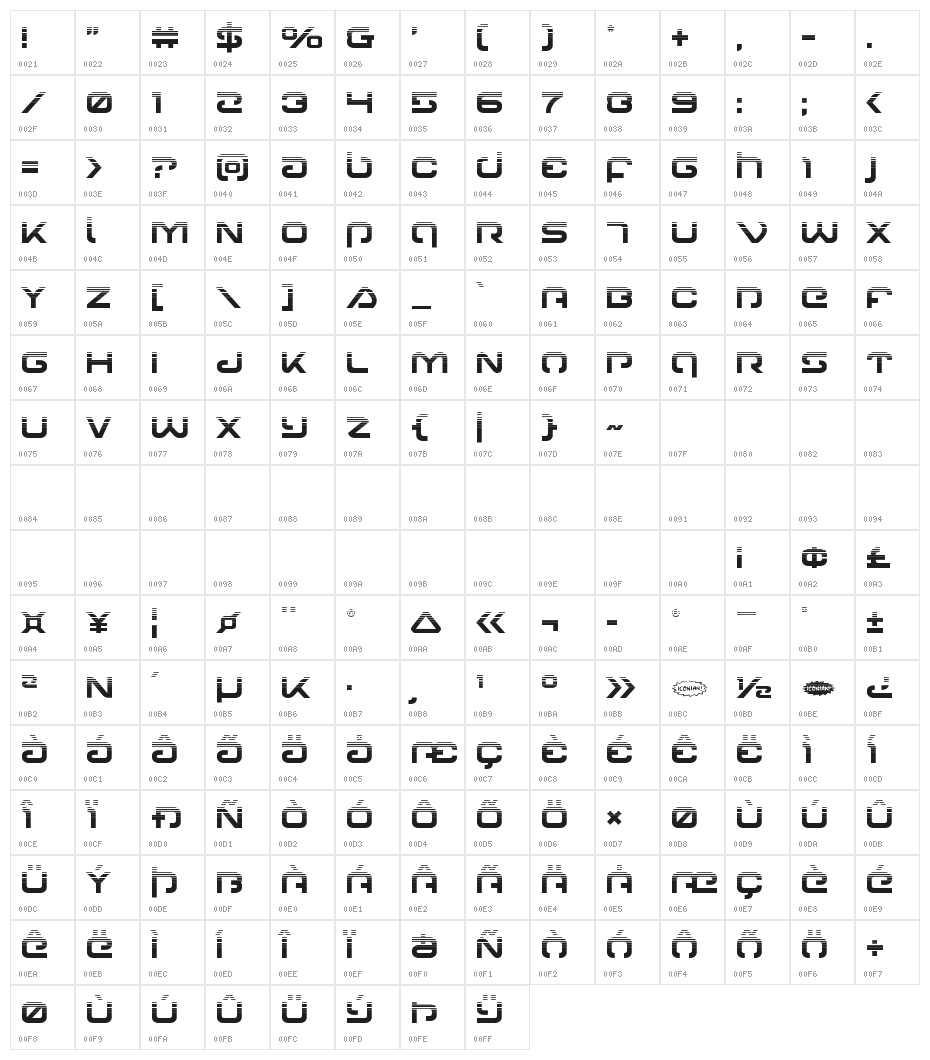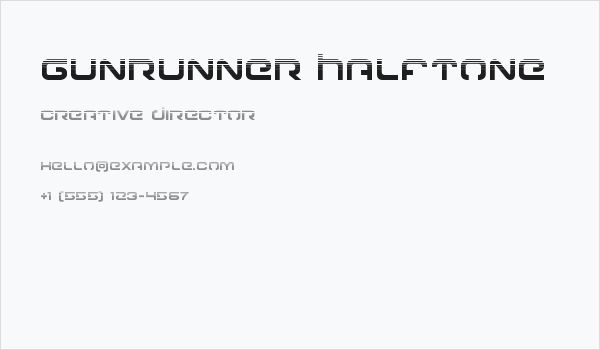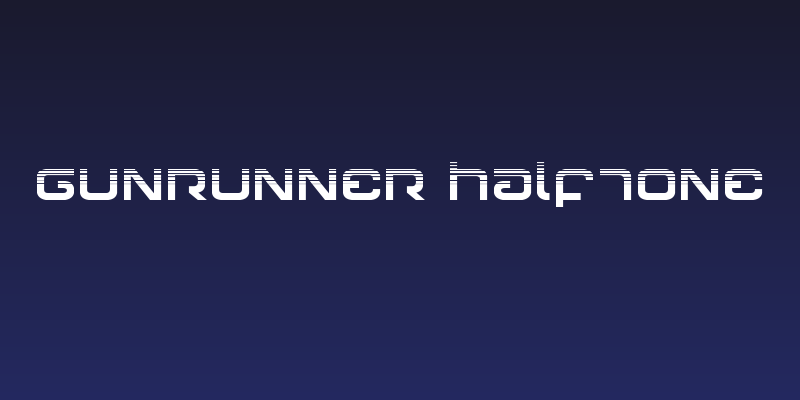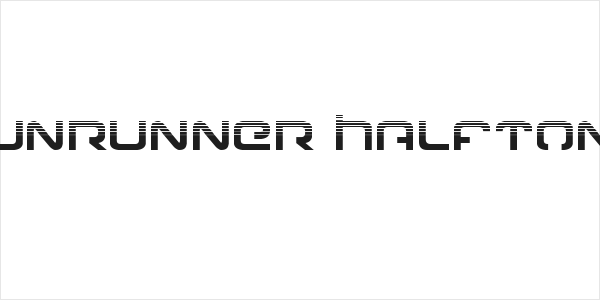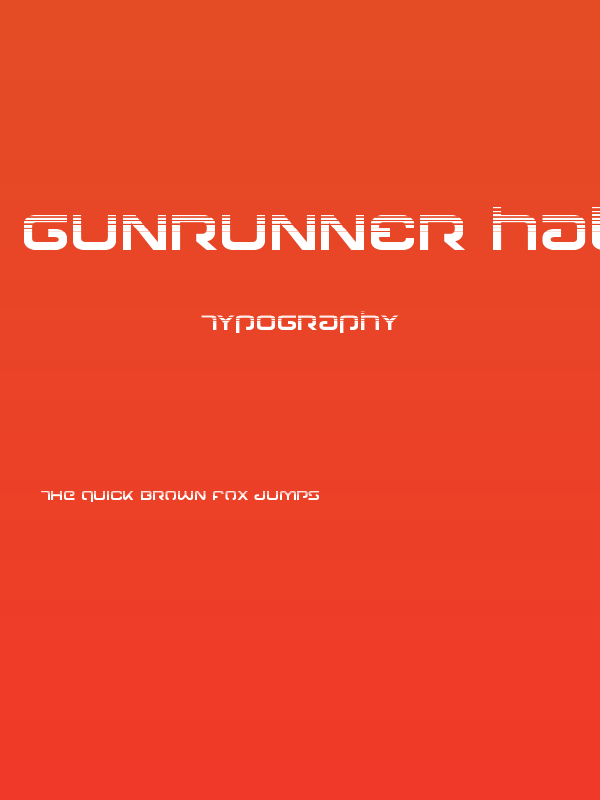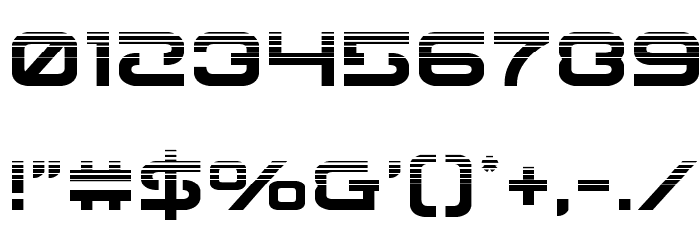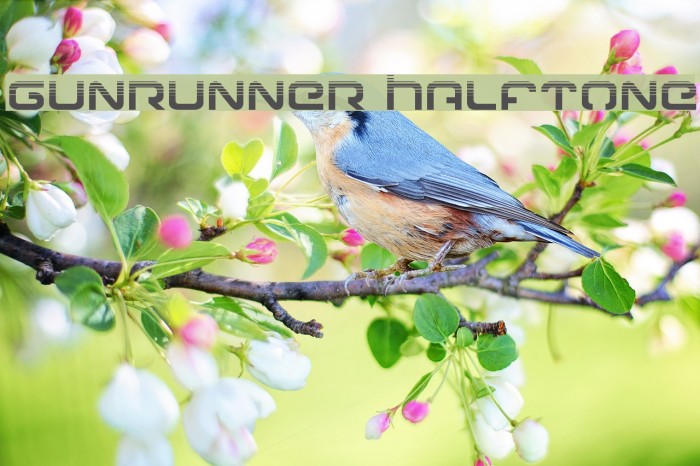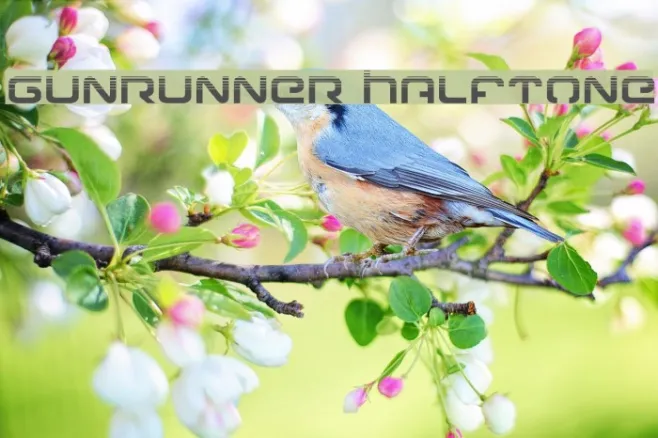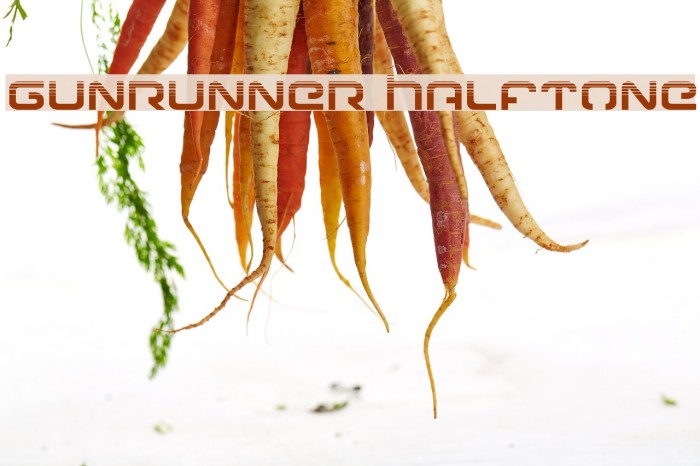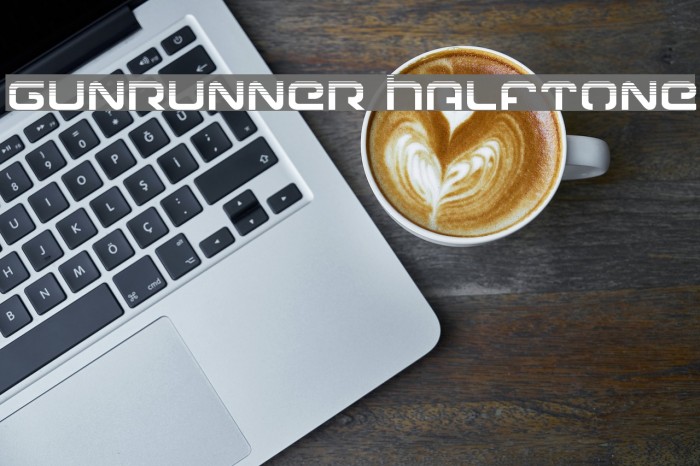
Gunrunner Halftone Font
Gunrunner Halftone Description
This font features a unique halftone effect that gives it a futuristic and digital appearance. The characters are bold and geometric, with a distinct pattern of horizontal lines that create a sense of movement and depth. The uppercase and lowercase letters maintain a consistent style, with sharp angles and clean lines. Numbers and special characters are designed to match the overall aesthetic, making this font suitable for a variety of creative projects. Its distinctive style is eye-catching and modern, perfect for designs that require a bold statement.
| Proposed Projects | Ideal for digital artwork, futuristic branding, video game titles, and tech-themed posters. |